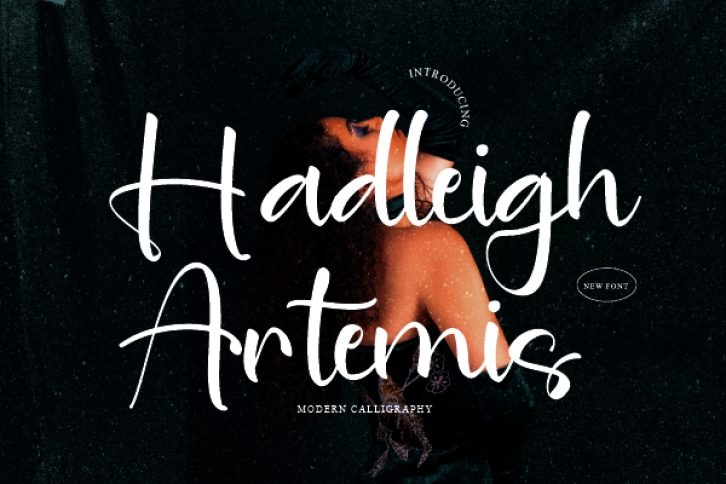
Hadleigh Artemis is a lovely script font featuring charming, playful characters that seem to dance along the baseline. Add this font to your most creative ideas, and notice how it makes them stand out!